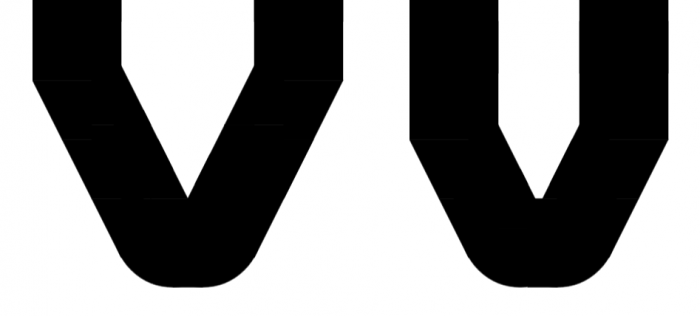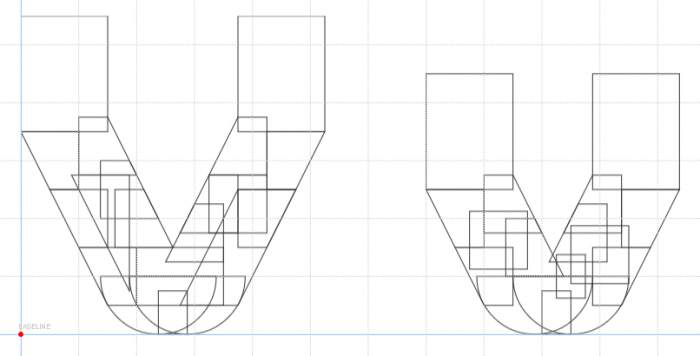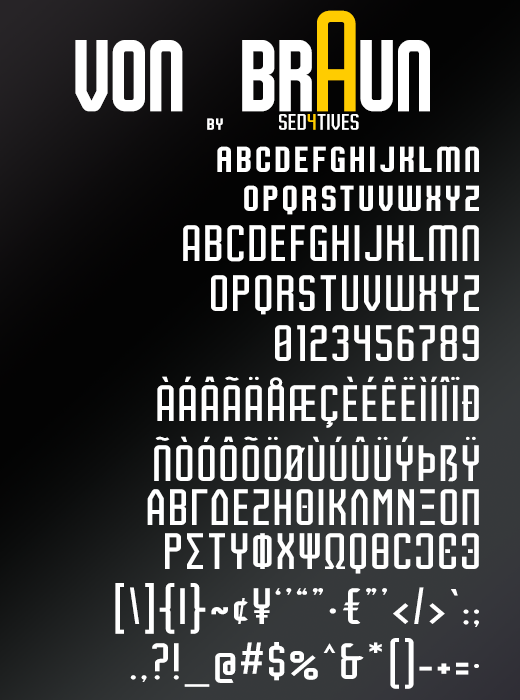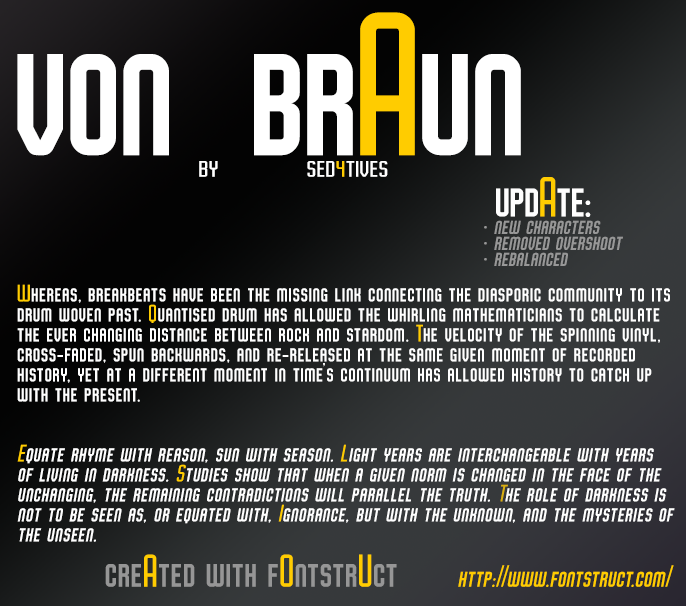
Excellent! Uu and Vv still need to be distinguished though.
@architaraz i don't think we use "vu" or "uv" very often
@architaraz: First of all thanks. About UV, I know this wouldve been best, I have been thinking about this while making it, but than I was thinking what would it have been like from the original logo designers perspective. Now taking the other glyphs in cincideration and after disconnecting myself from looking at it from a typographers perspective I came to the conclusion that this most likely this would've been the letterform. And it probably is only confusing seeing the two right next to eachother like in the alphabet preview. When reading a standard text it's not that bad at all I think.
I'm sure you've already thought of these - they would fit within the design parameters of the font you've set.
Actually yes I did. Also constructed a couple more but none really had it for me.. But even tho X makes the second fit within the parameters, I am not very keen with how my X looks either.
Another solution could've been a bevel but I want to avoid any straight angles (bevel) on any of the actual letters.
Oh well I haven't thought of the first actually.. I will try it! Thanks
Nice usage of the Connecting Bricks! Good one!
@ se7en: If only it would've been that easy.. ;)
It's a combination of both
Okay it took me a while but I think I came with a very satisfying solution for both upper and lowercase v.
Well I even edited the the uppercase V's tip some more to match closer to the lowercase its tip.
Finally I got a propper fully curved solution to distinguish V from U, without making compromise to the rounded overall look of the font.